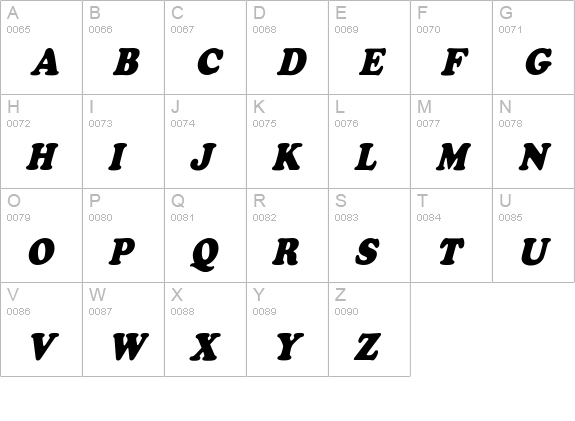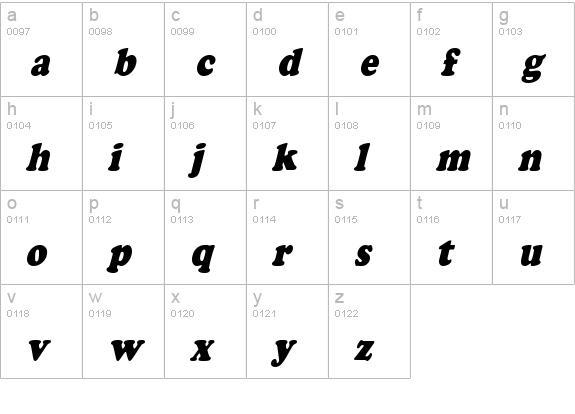
CooperCndObl-Heavy is a heavy, high-impact variant in the CooperCndObl typeface family \xE2\x80\x94 well suited to high-impact headlines, posters, and display advertising.
CooperCndObl-Heavy font is a bold and distinctive typeface that exudes strength and elegance. Its unique condensed oblique design adds a touch of sophistication to any project, making it perfect for headlines, titles, and branding materials. The heavy weight of the font commands attention and makes a bold statement. What's even better is that CooperCndObl-Heavy font is available for free download at FontsMarket.com. This means you can easily access and use this stunning font in your design projects without any cost. Don't miss out on the opportunity to elevate your creations with the striking CooperCndObl-Heavy font, now available for free at FontsMarket.com.